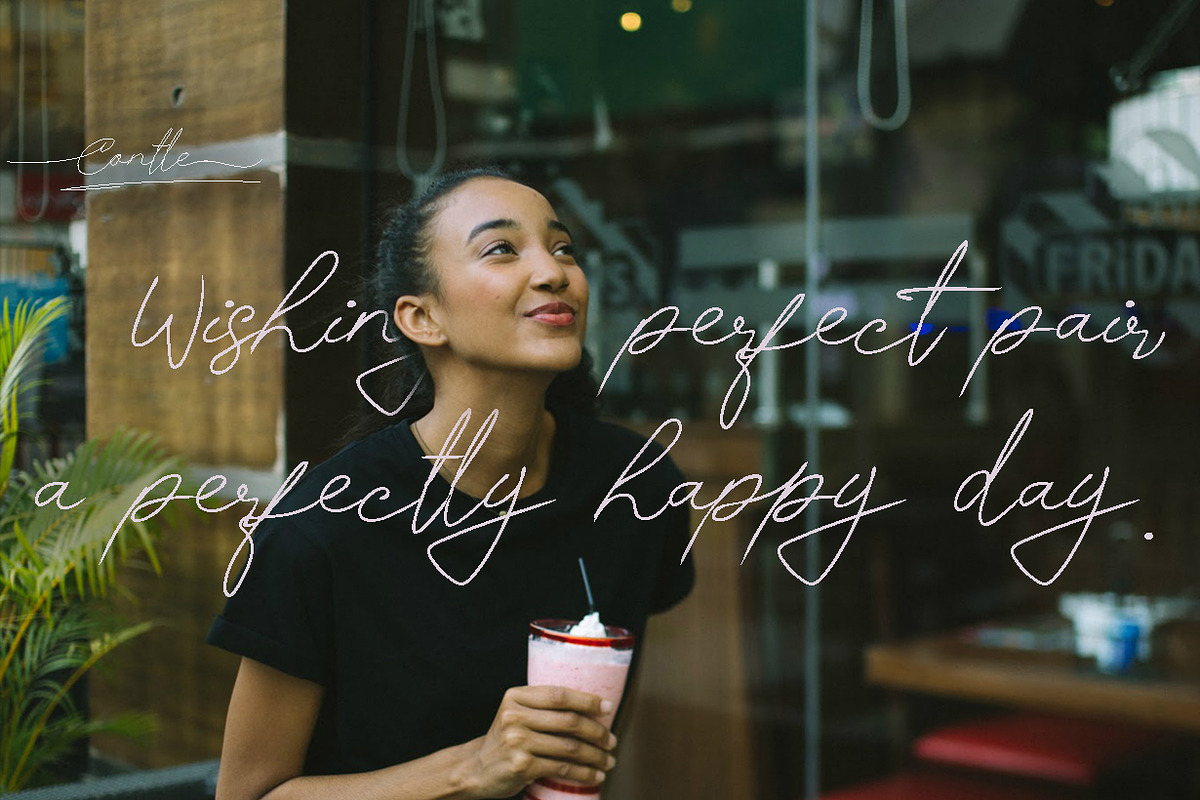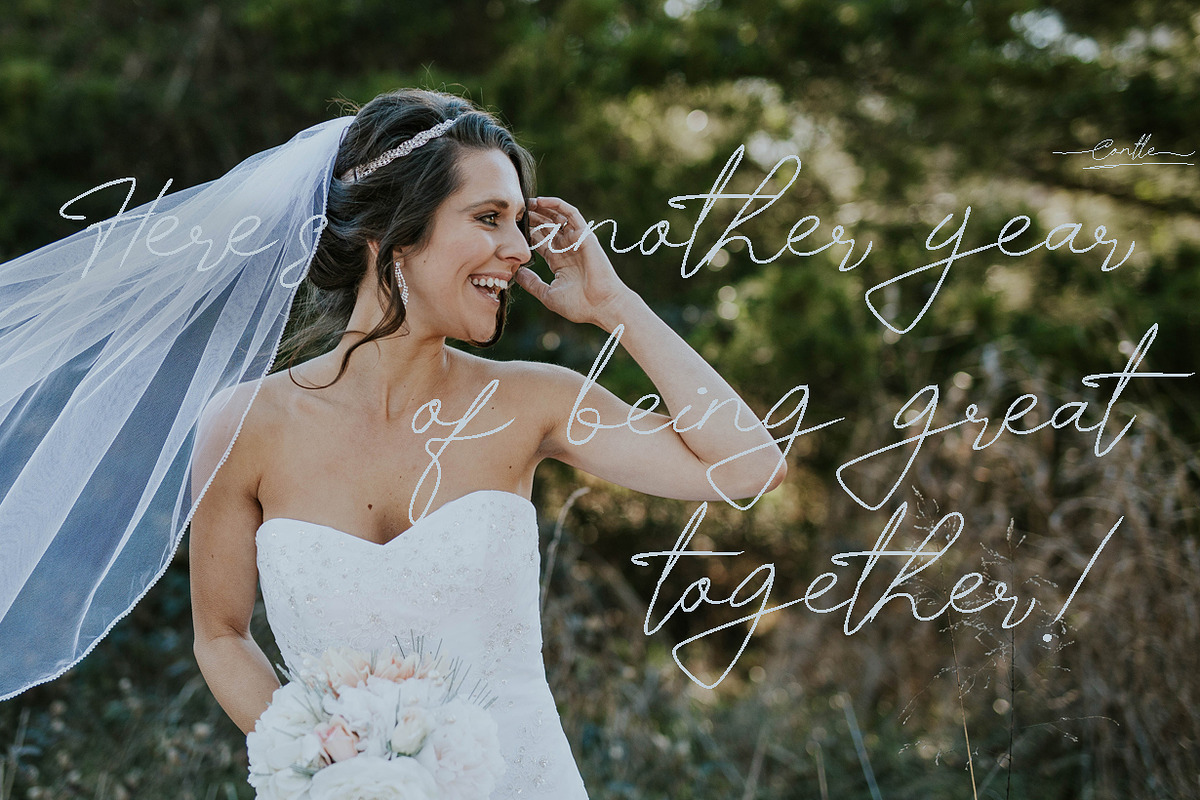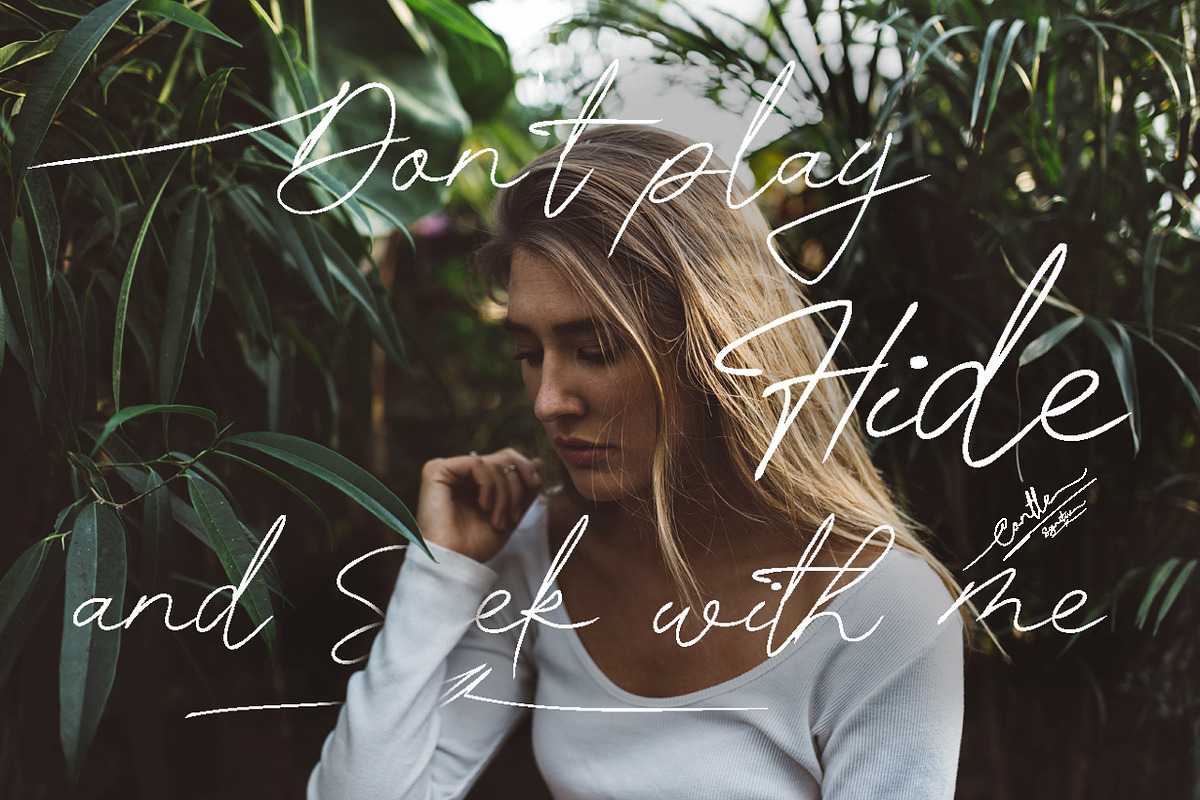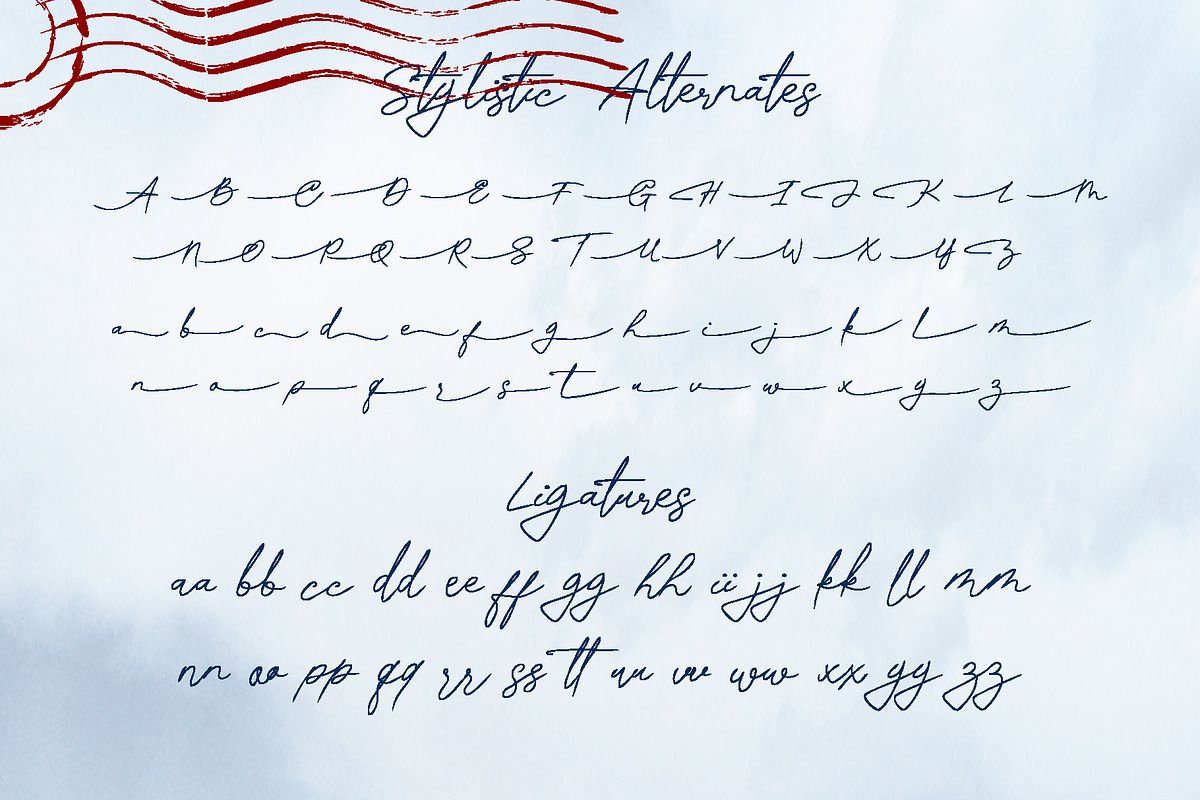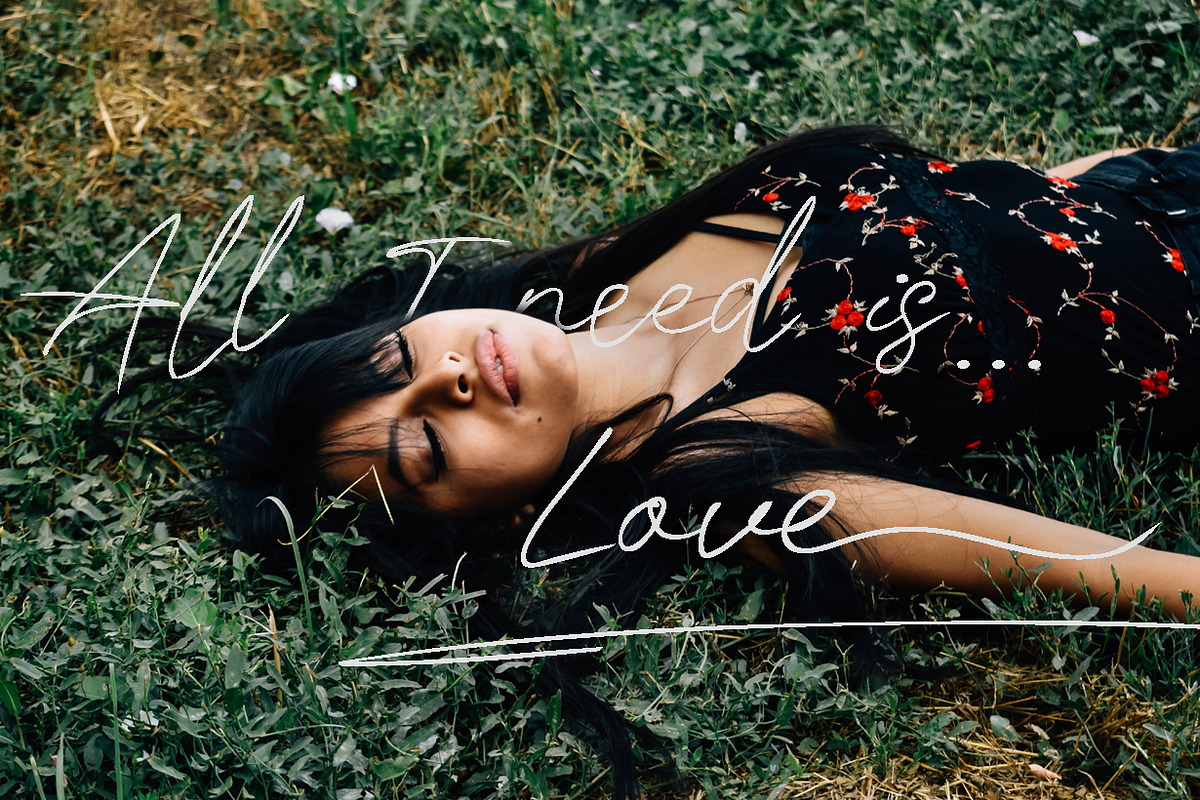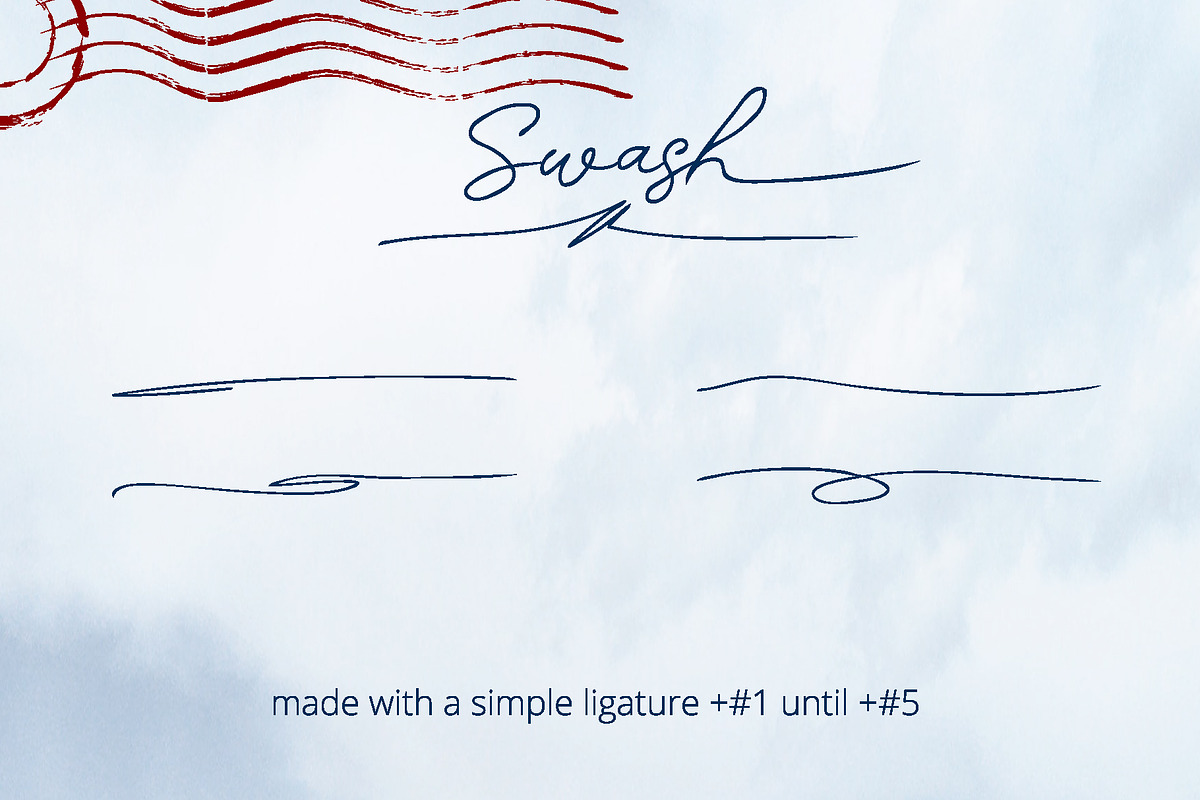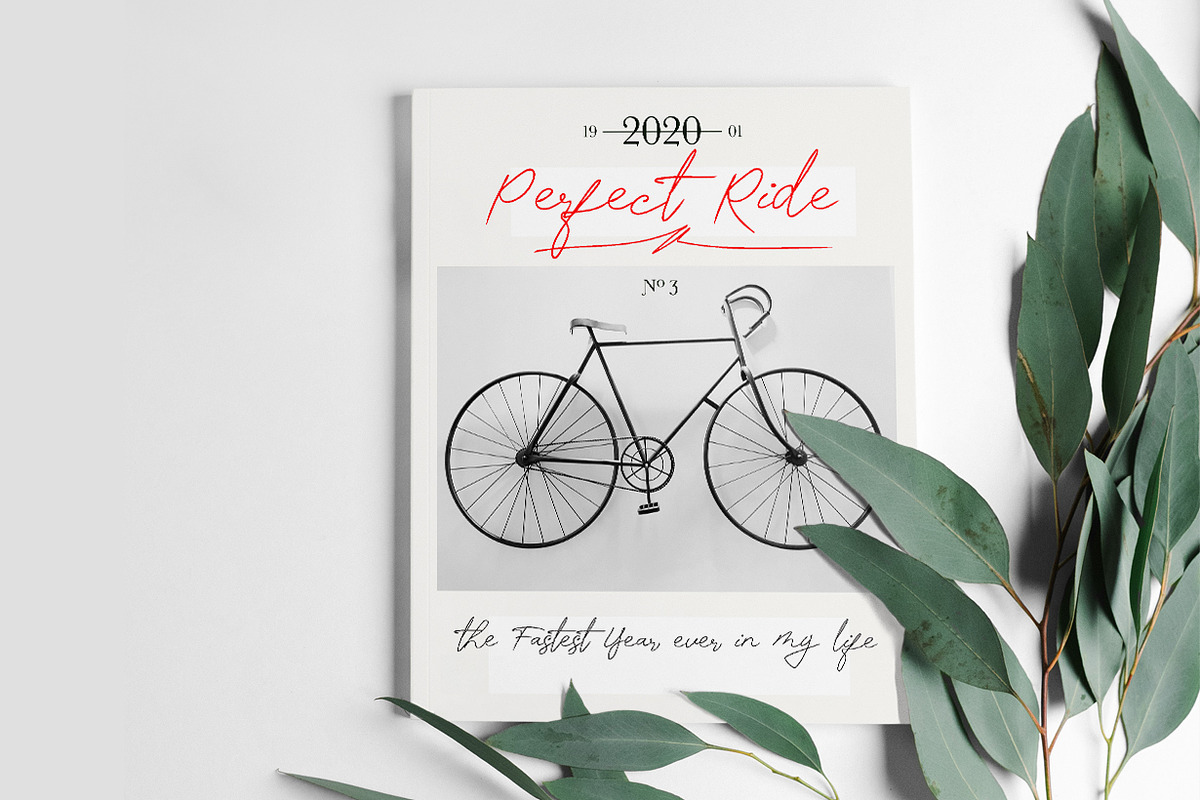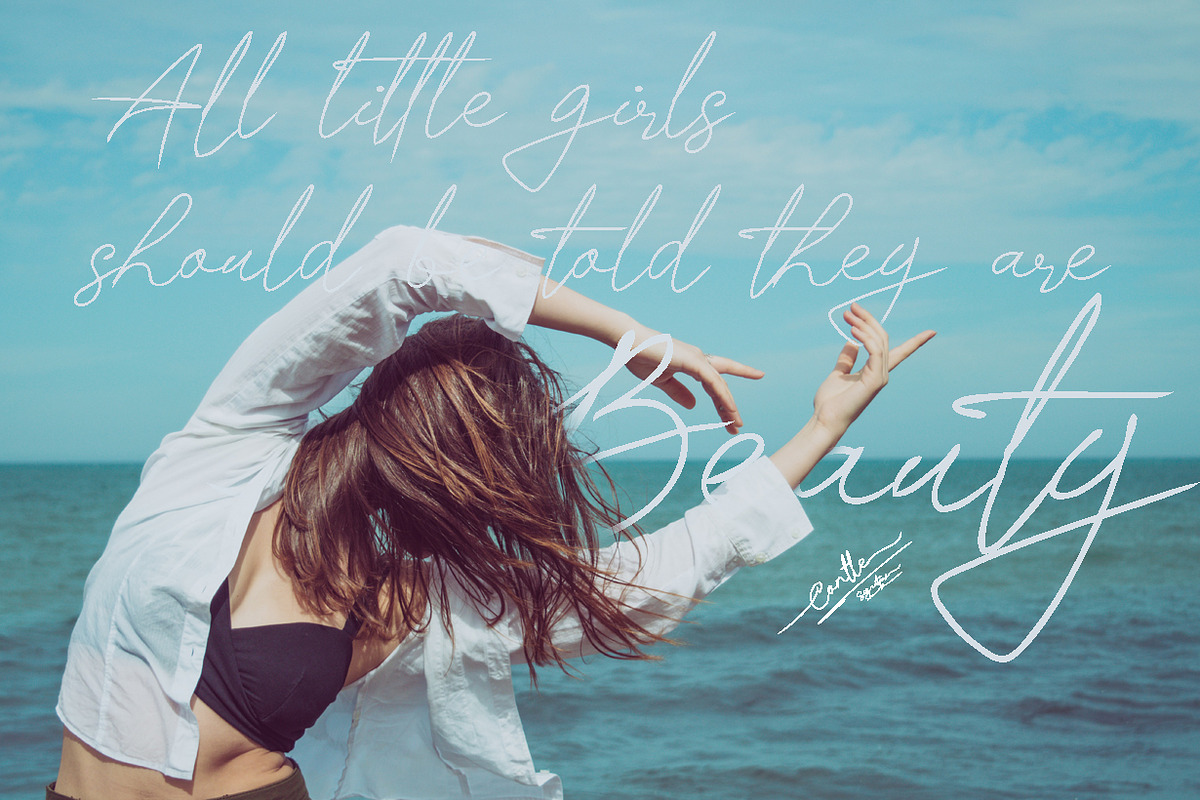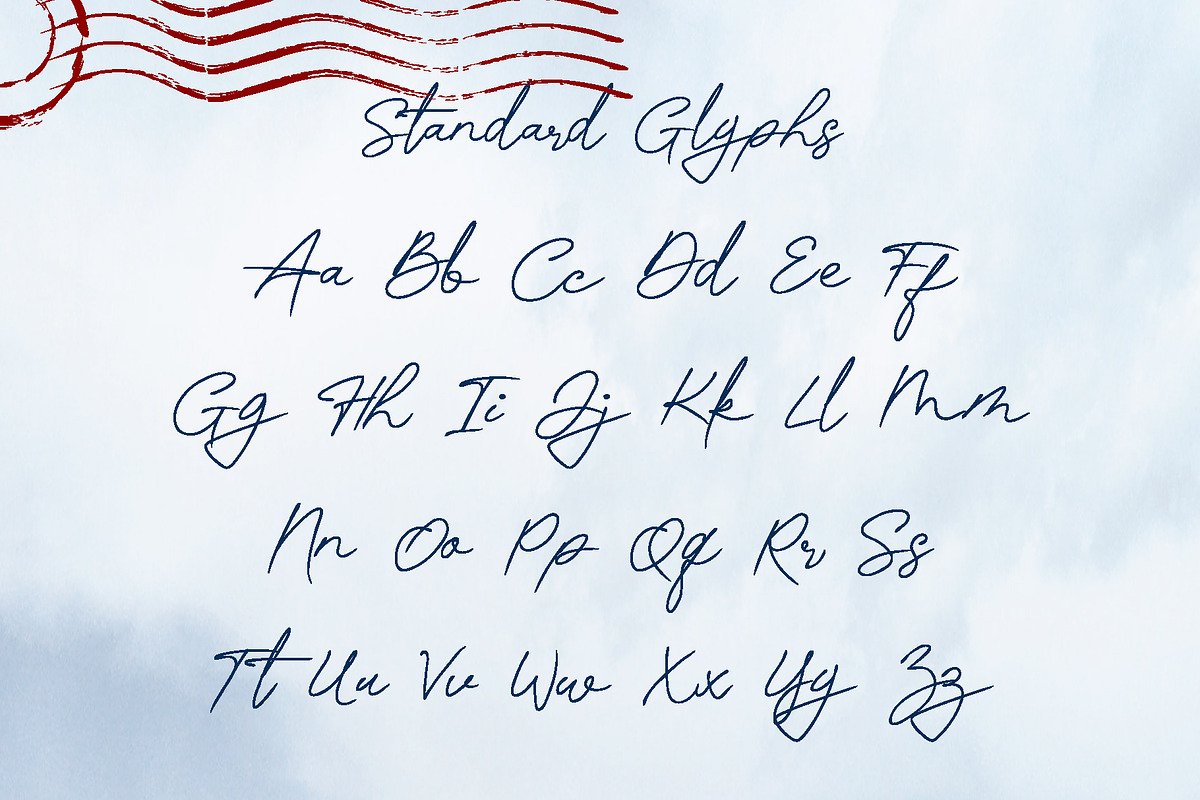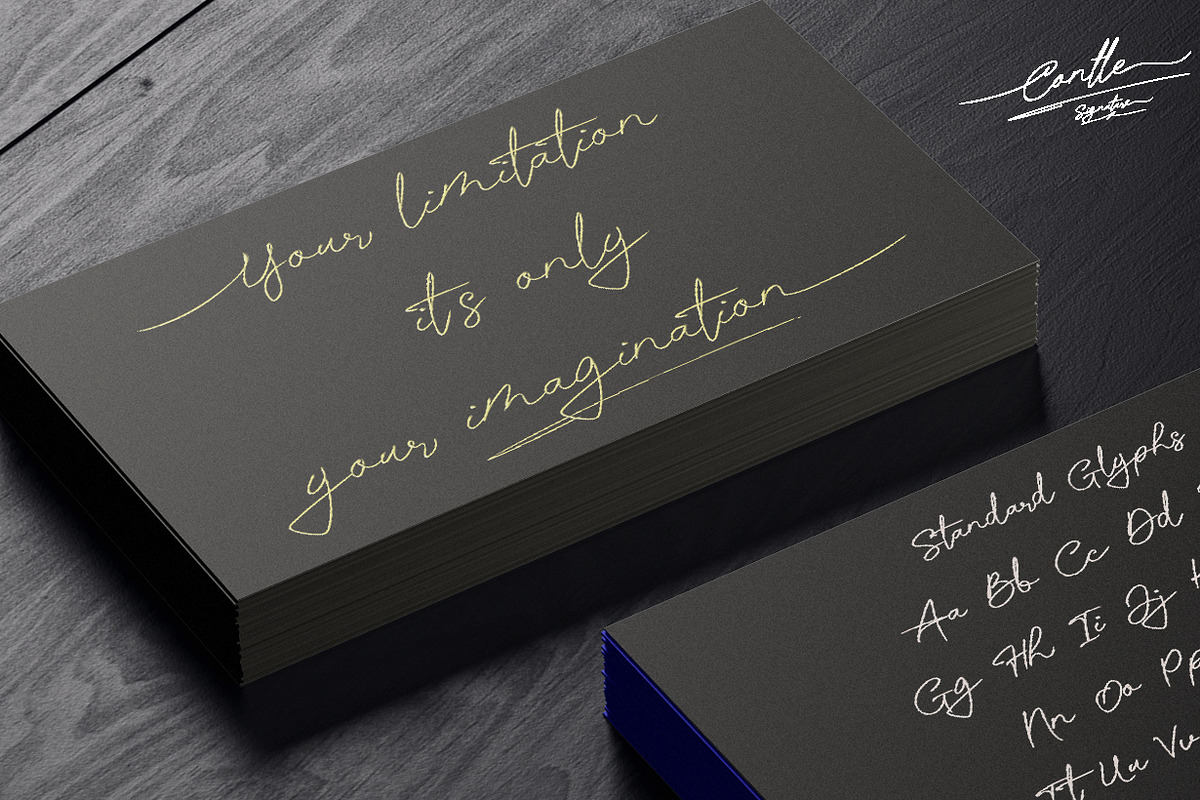
Contle Signature Script Font
LUXURY SIGNATURE SCRIPT FONT
As a graphic designer, who worked/works a lot on creating branding, we often are requested to design a logo in SIGNATURE STYLE, but with the vibe of real hand lettering. So, this font is an answer for this idea.
Introducing Contle - SIGNATURE SCRIPT FONT Font by Anomali Creatype! Contle is SIGNATURE SCRIPT FONT is handmade SIGNATURE STYLE FONT with stunning characters. Ideal for logos, name tag, handwritten quotes, product packaging, merchandise, social media & greeting cards. It contains a full set of lower & uppercase letters, a large range of punctuation, numerals, and multilingual support.
Also, to keep maximum real SIGNATURE SCRIPT effect, there were created many ligatures (you can see them among presentation pictures).When creating the font, we should take into consideration that each letter should be able to be connected with other letters. For example, letter "a" should be well connected as well as with "l" and "n" and with any other letters. This limits us: we have to start letter from exact one point and finish in exact second point. So here come ligatures.